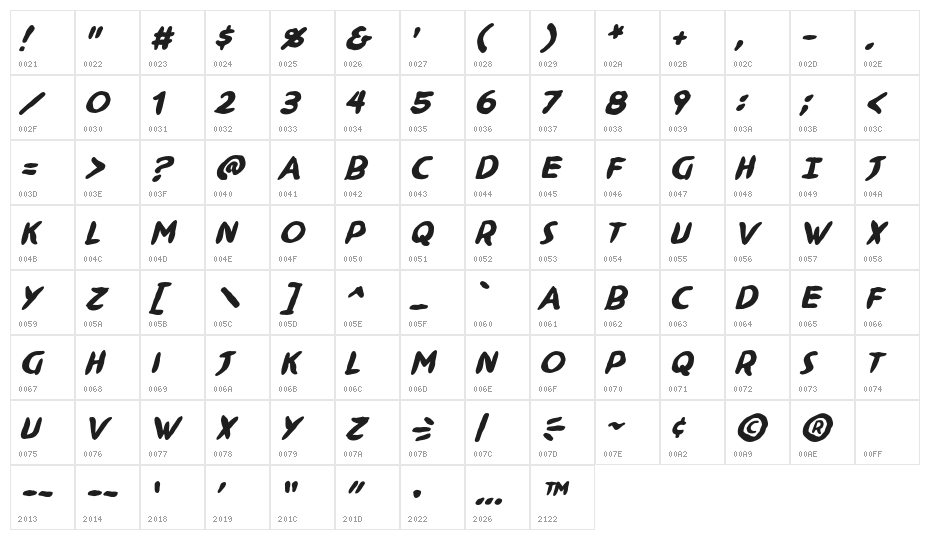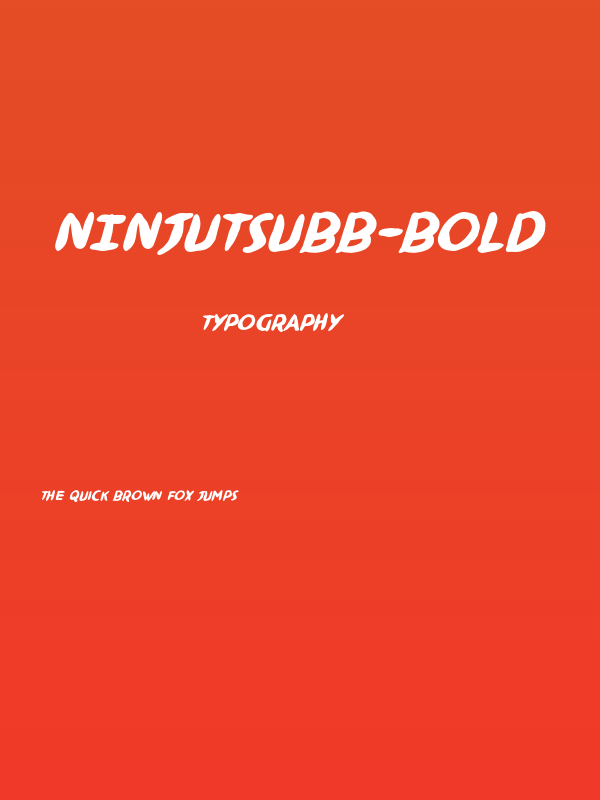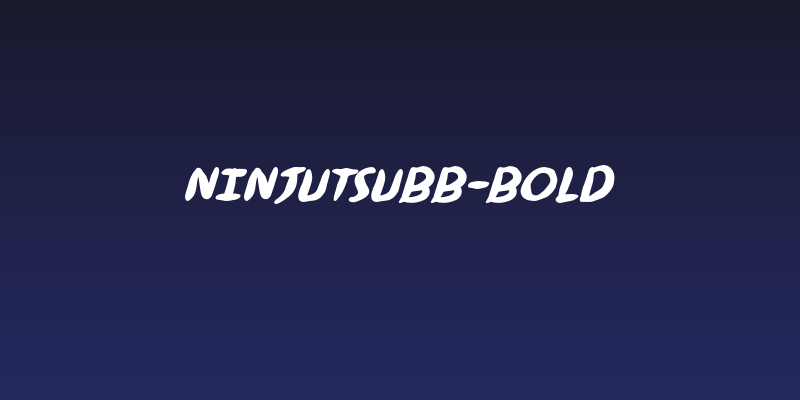
NinjutsuBB-Bold Font
NinjutsuBB-Bold Description
This font features a bold and dynamic style, characterized by thick, flowing strokes that convey a sense of movement and energy. The letters are slightly slanted, adding a touch of informality and playfulness. The uppercase and lowercase characters maintain a consistent weight, creating a harmonious look. The numbers and special characters are designed with the same boldness, ensuring uniformity across all elements. This font's unique style makes it stand out, making it ideal for projects that require a strong visual impact.
| Proposed Projects | Ideal for posters, logos, branding, and any design needing a bold, energetic touch. |